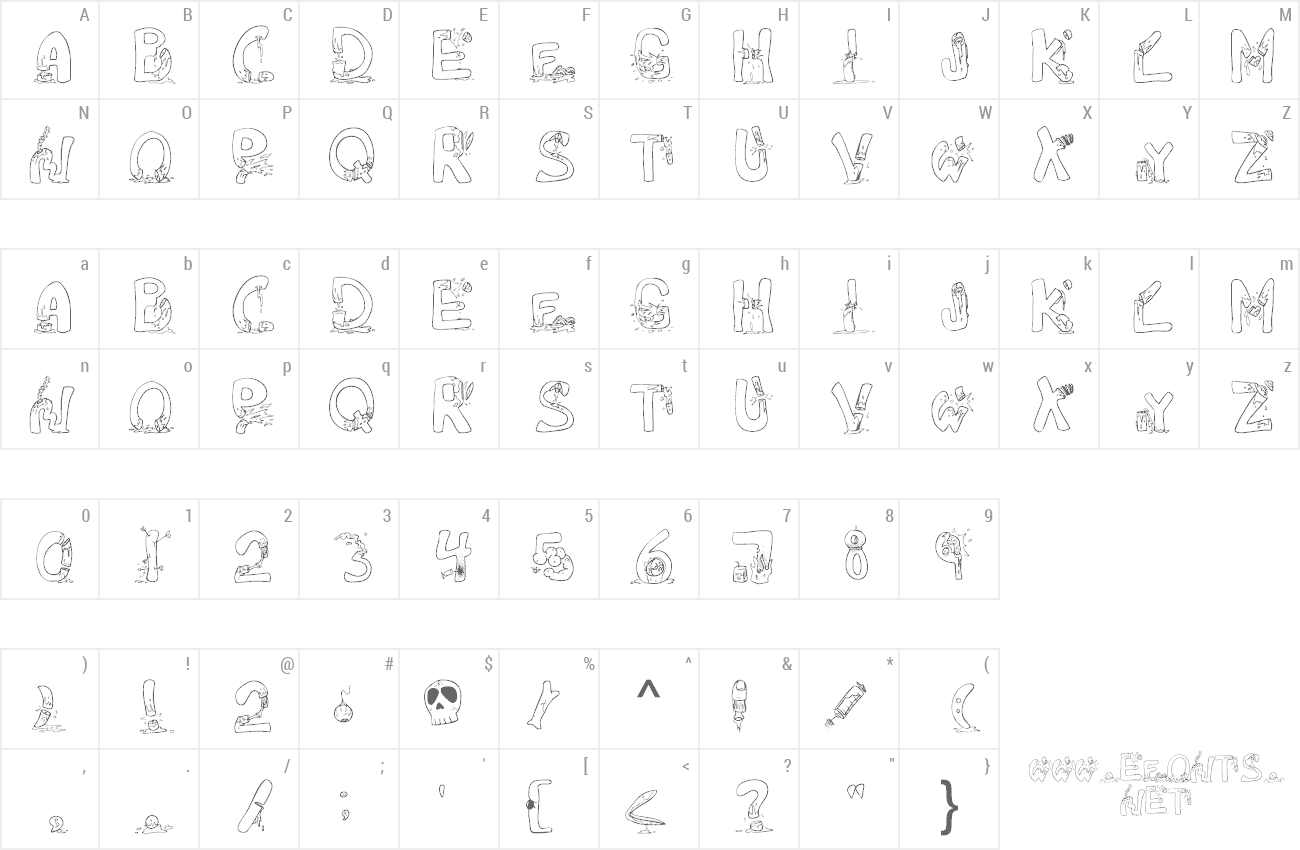
| Font name: | Decapitated |
| Author: | Devin Montes |
| Note by Devin Montes | |
I just started making fonts, so here's one that I like. PS- this is only good if the font is large, its not for writing paragraphs and stuff, just like Titles that are large. |